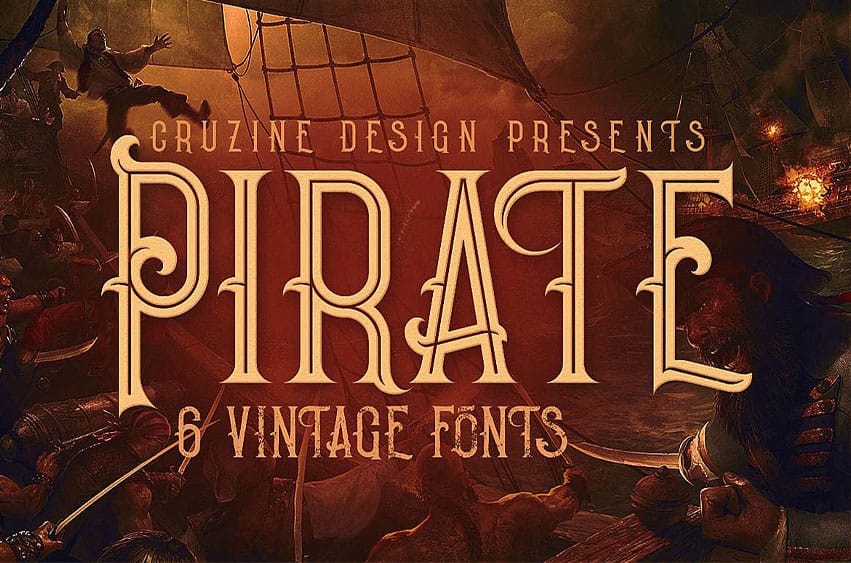
Pirate Vintage Font is a phenomenal and thematic display font, an amazing font style for more than just seafaring design.
Pirate comes with several font styles for a large range of finishes and options.